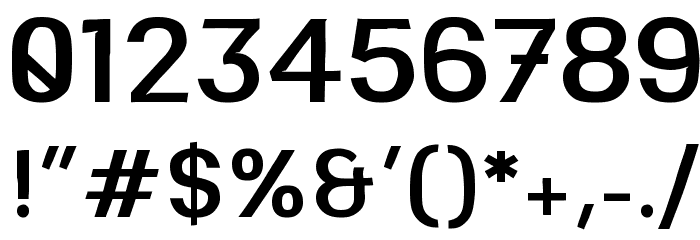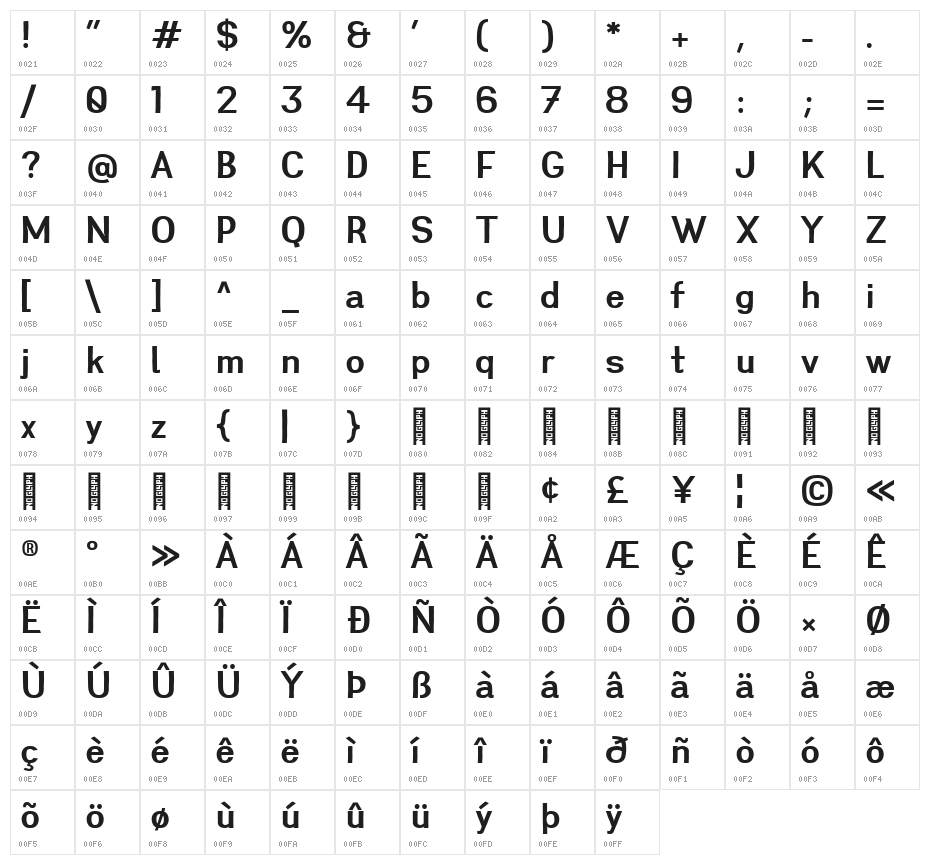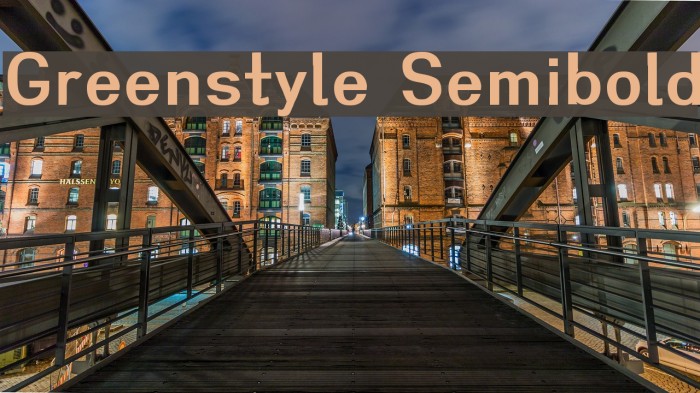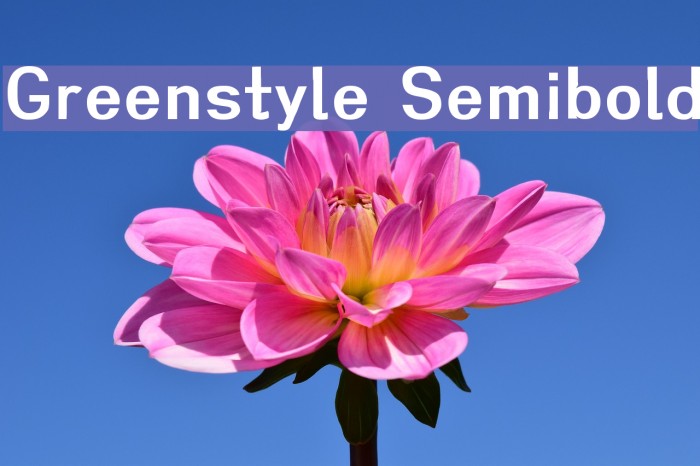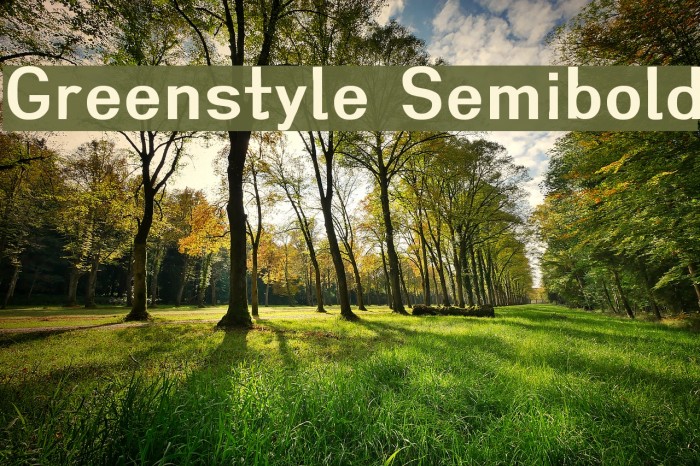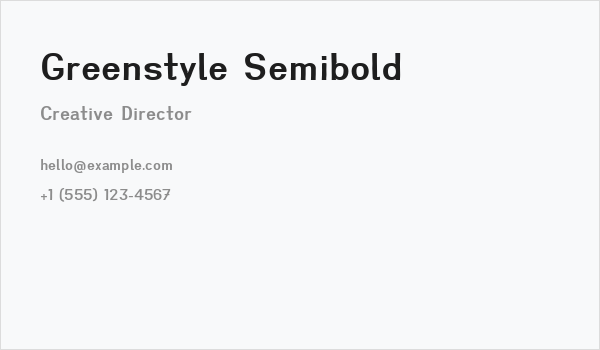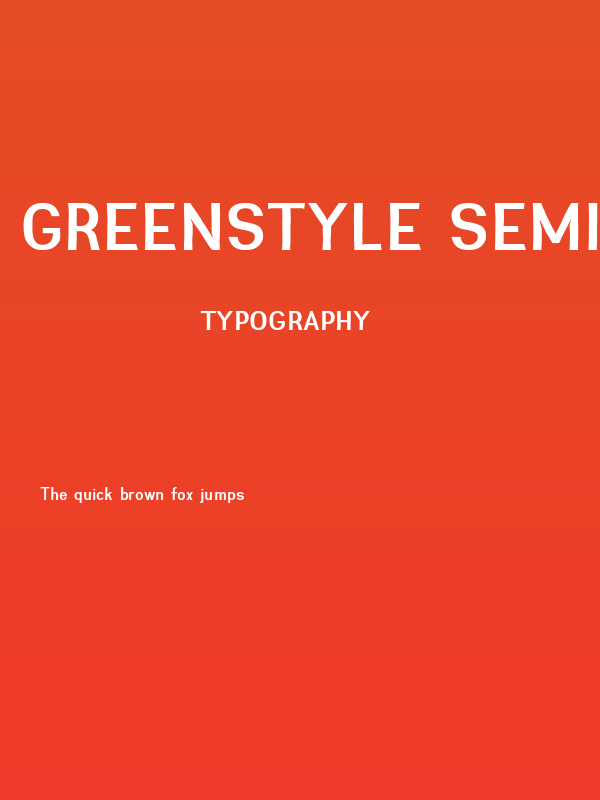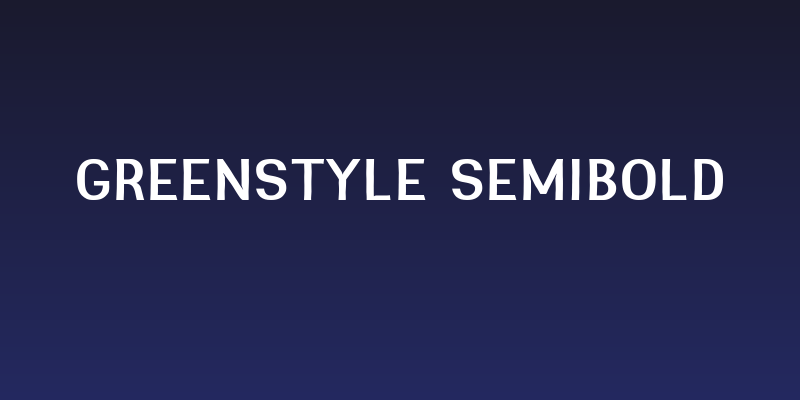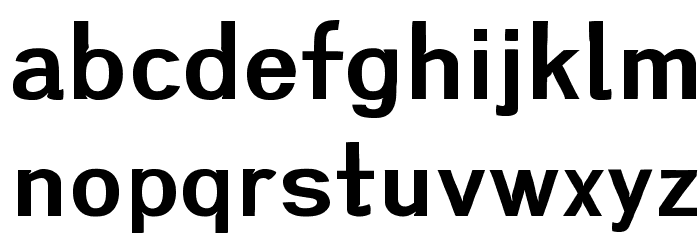
Greenstyle Semibold Font
Greenstyle Semibold Description
This font features a clean and modern sans-serif style with a semi-bold weight, offering a strong yet approachable appearance. The characters are well-defined with consistent stroke widths, providing a balanced and harmonious look. The uppercase and lowercase letters maintain a uniform height, contributing to its readability and versatility. The numerals and special characters are designed with clarity in mind, ensuring they stand out without overpowering the text. This font's straightforward design makes it suitable for a variety of applications, from digital interfaces to print media.
| Proposed Projects | Ideal for branding, web design, advertising, and editorial layouts. |